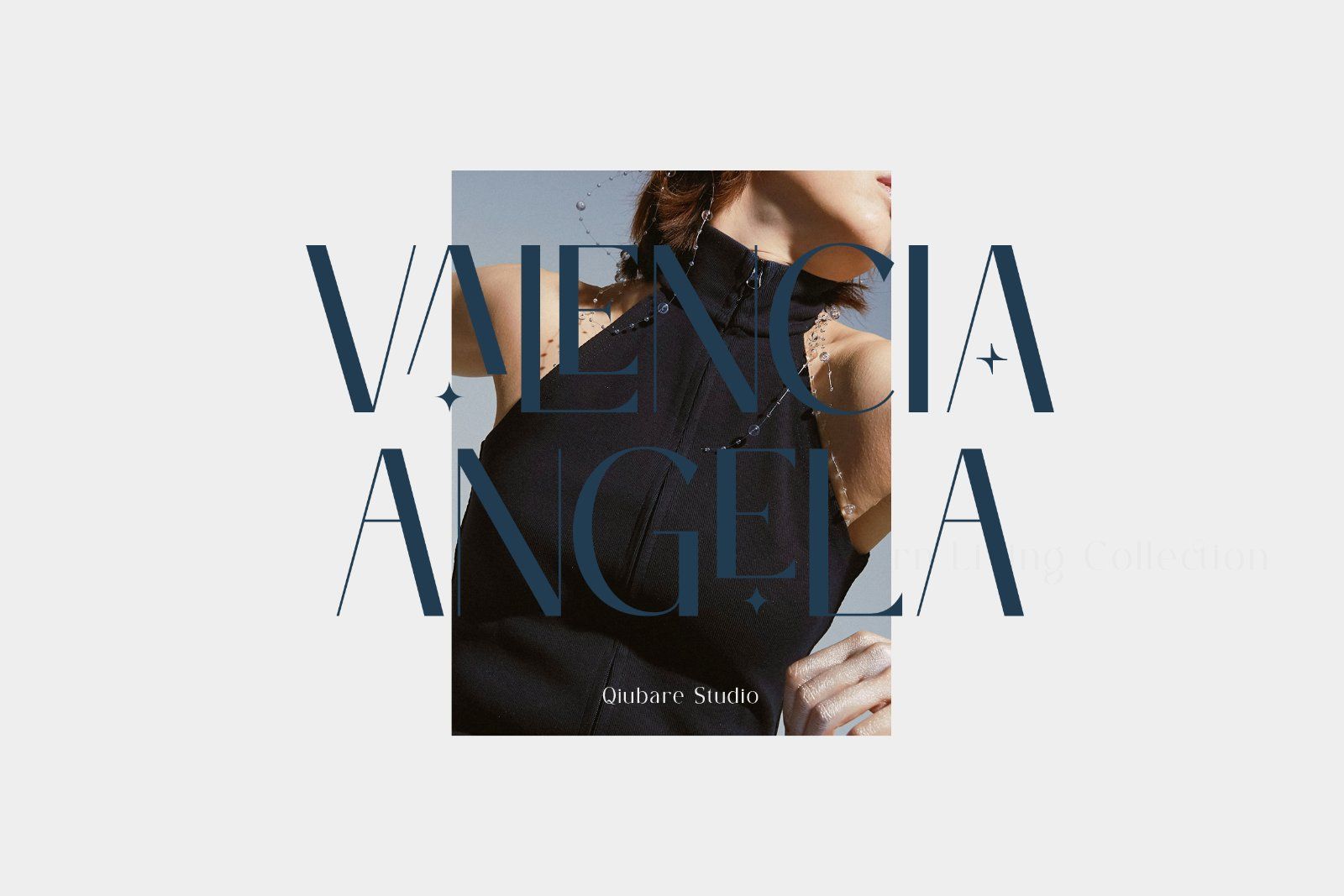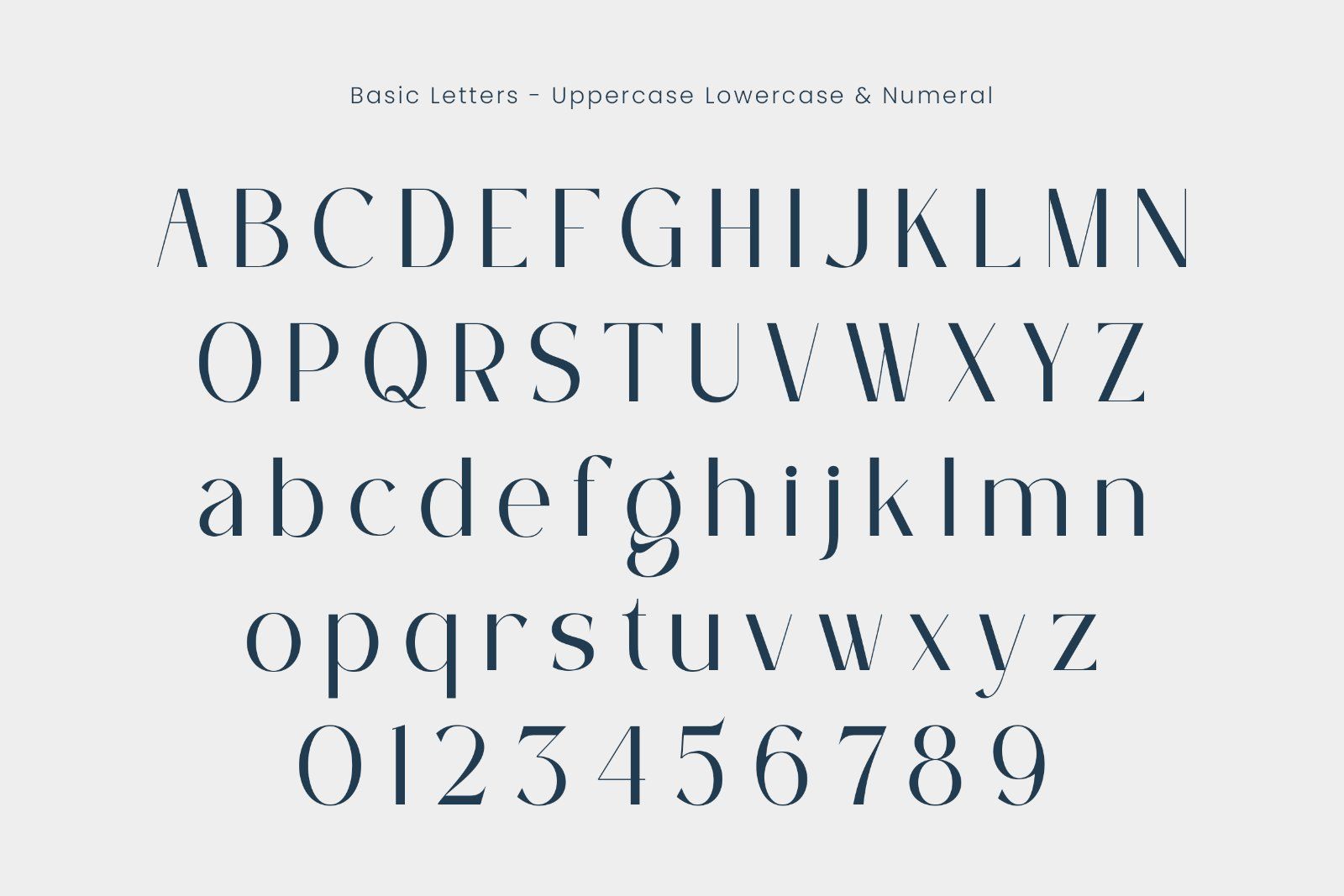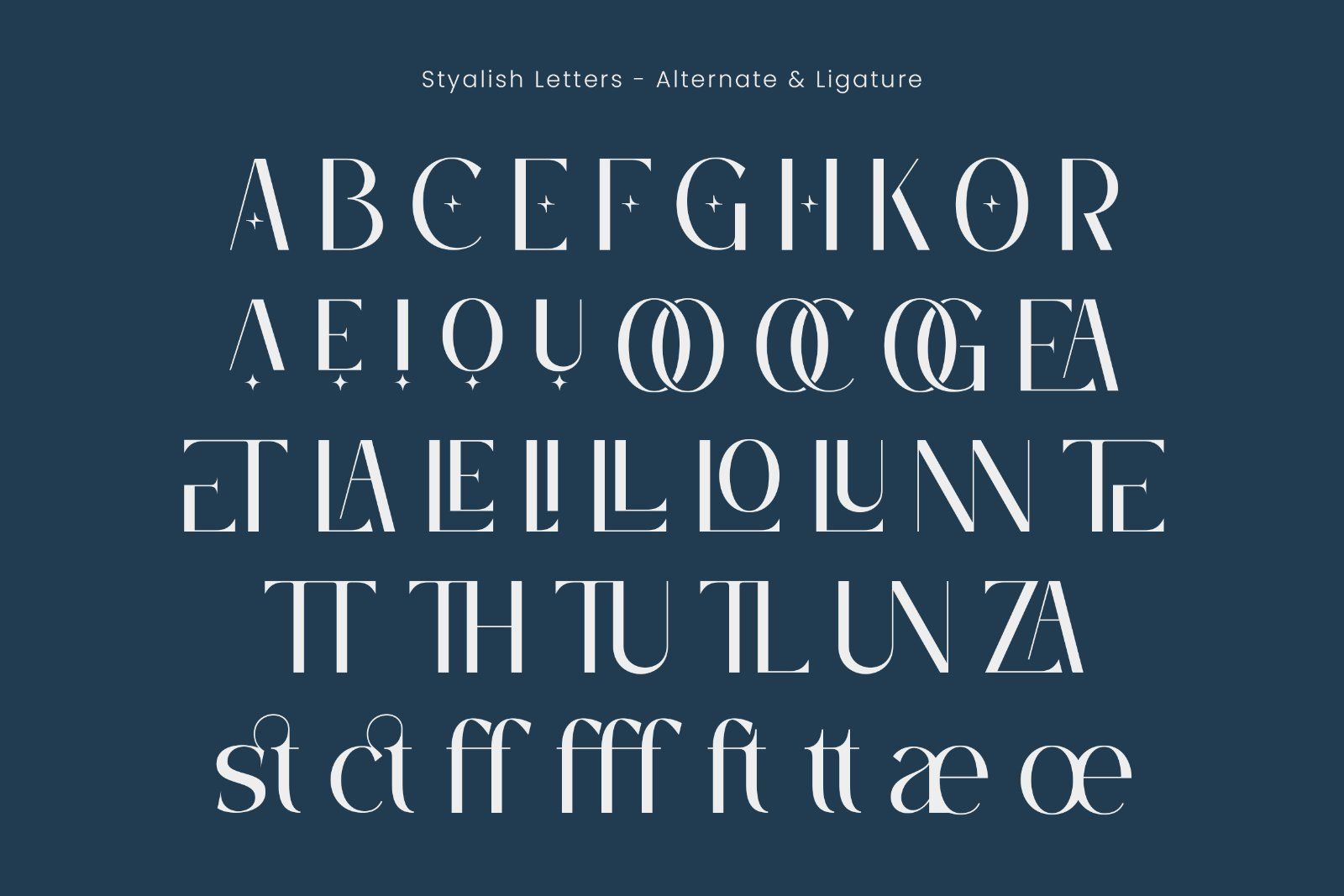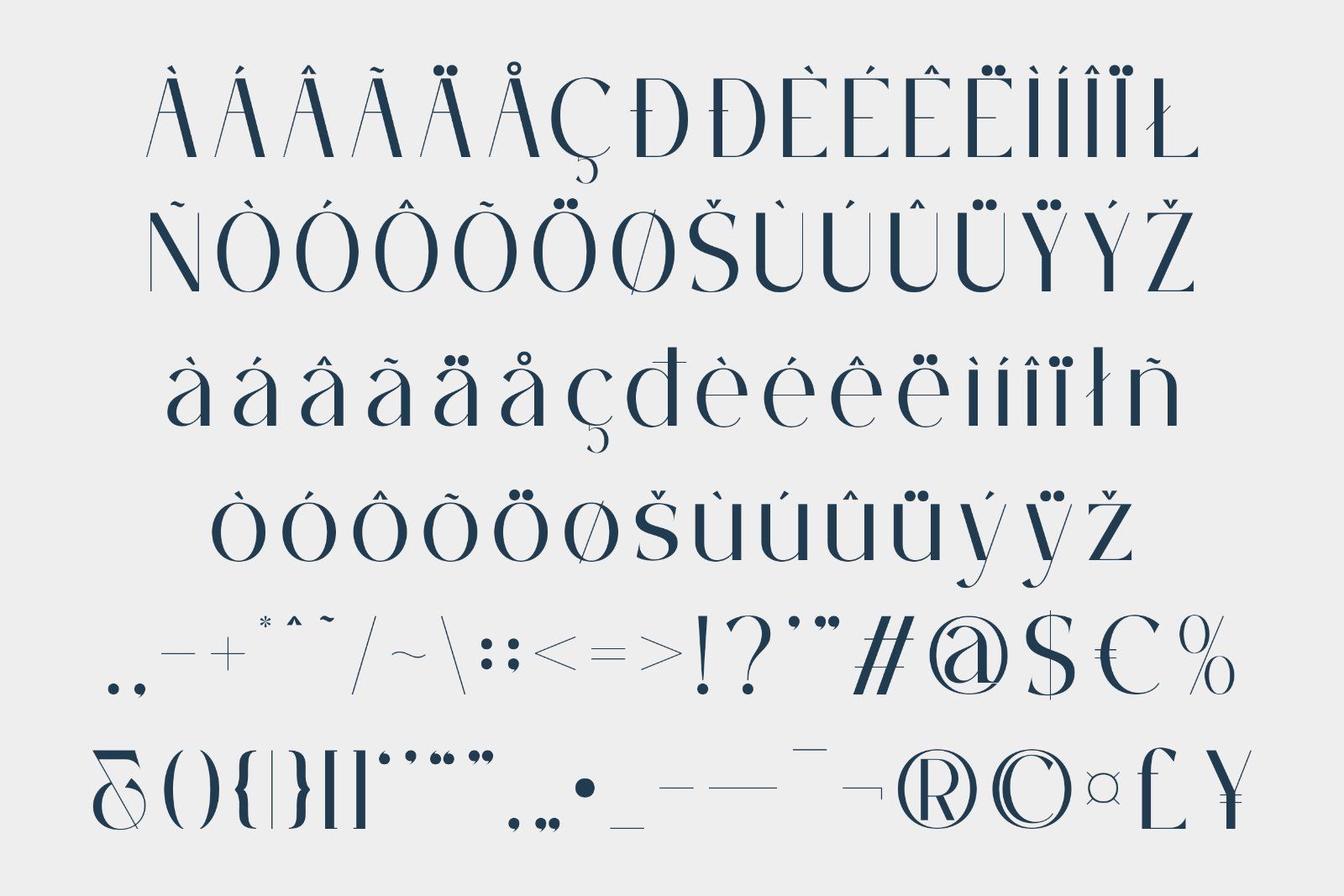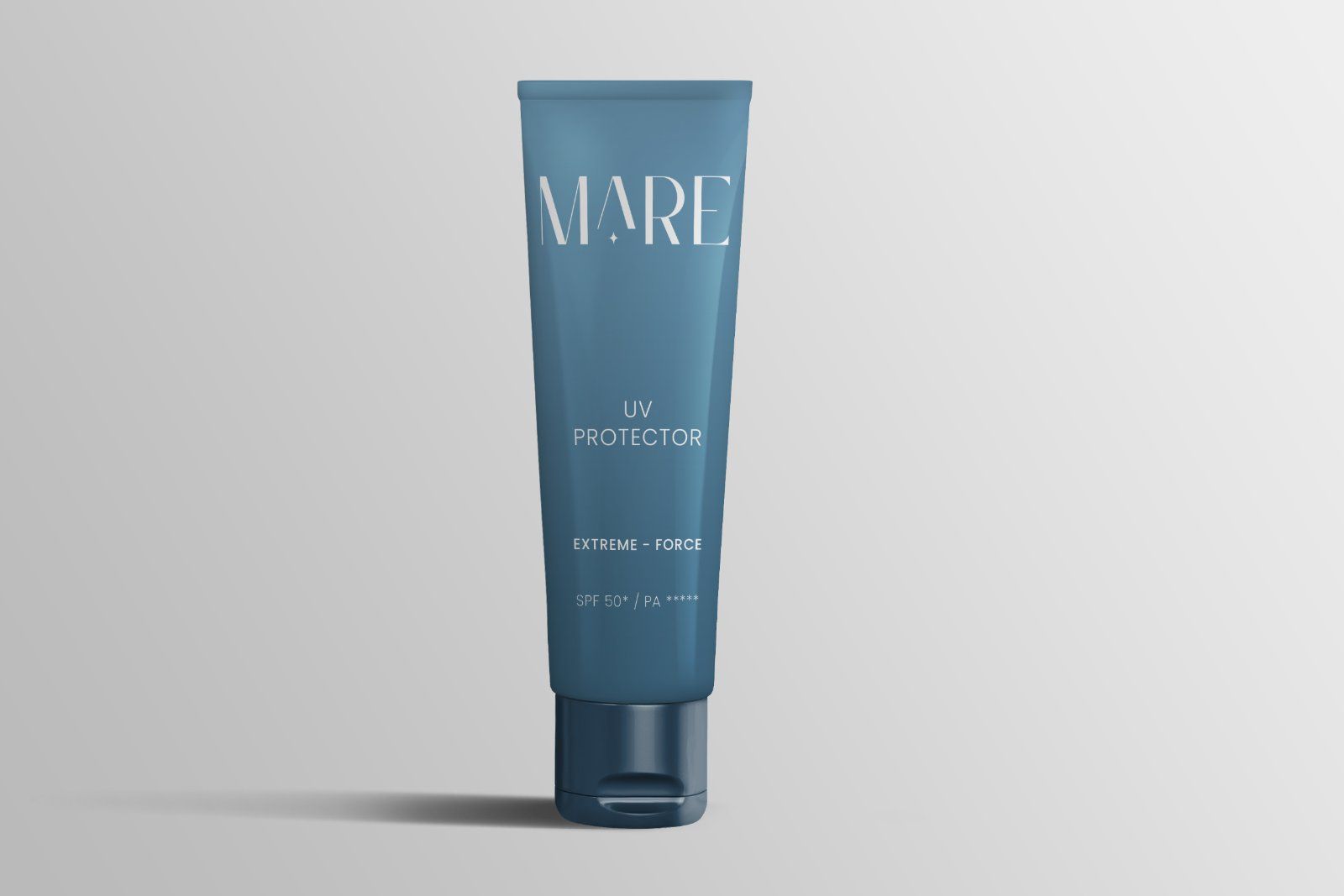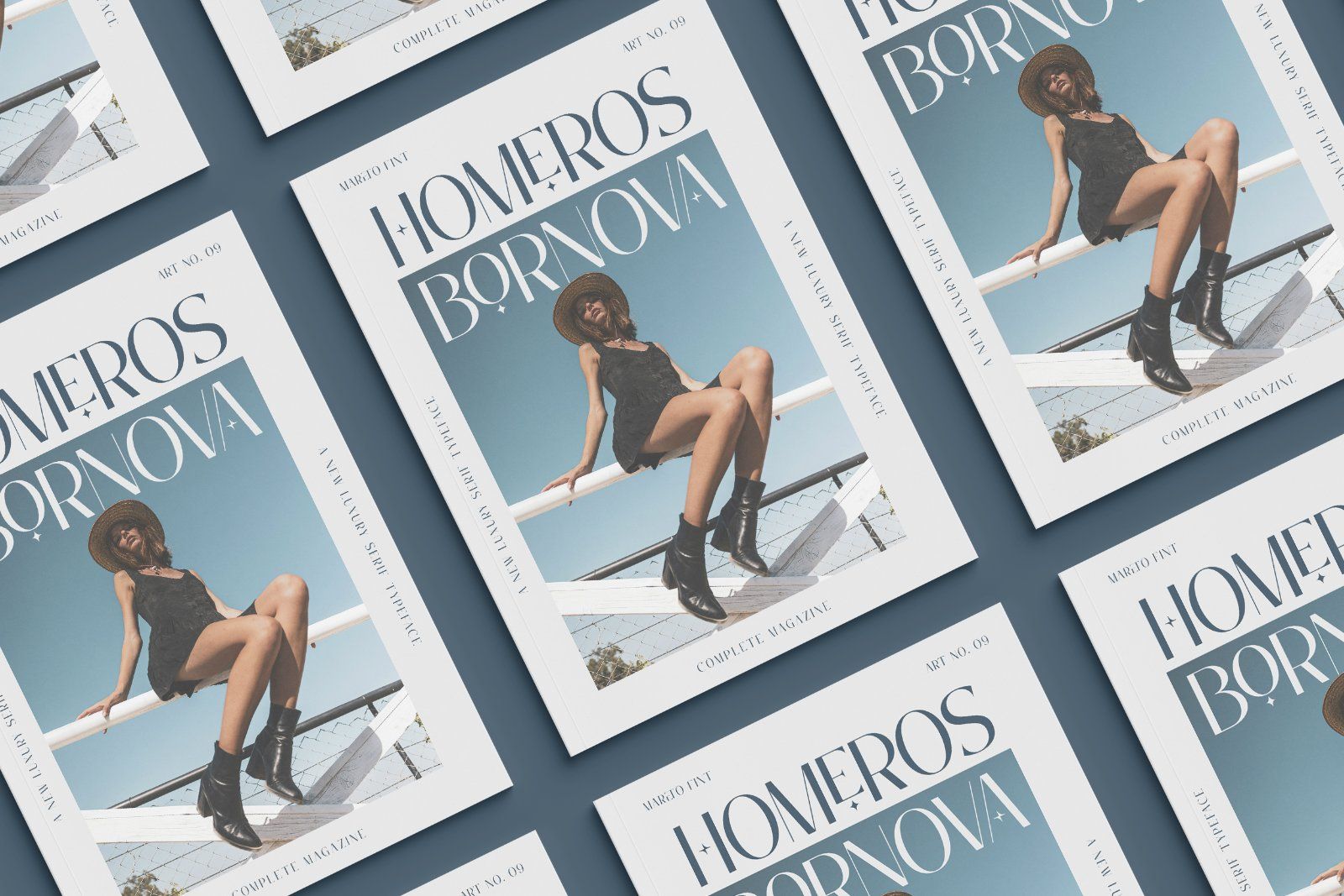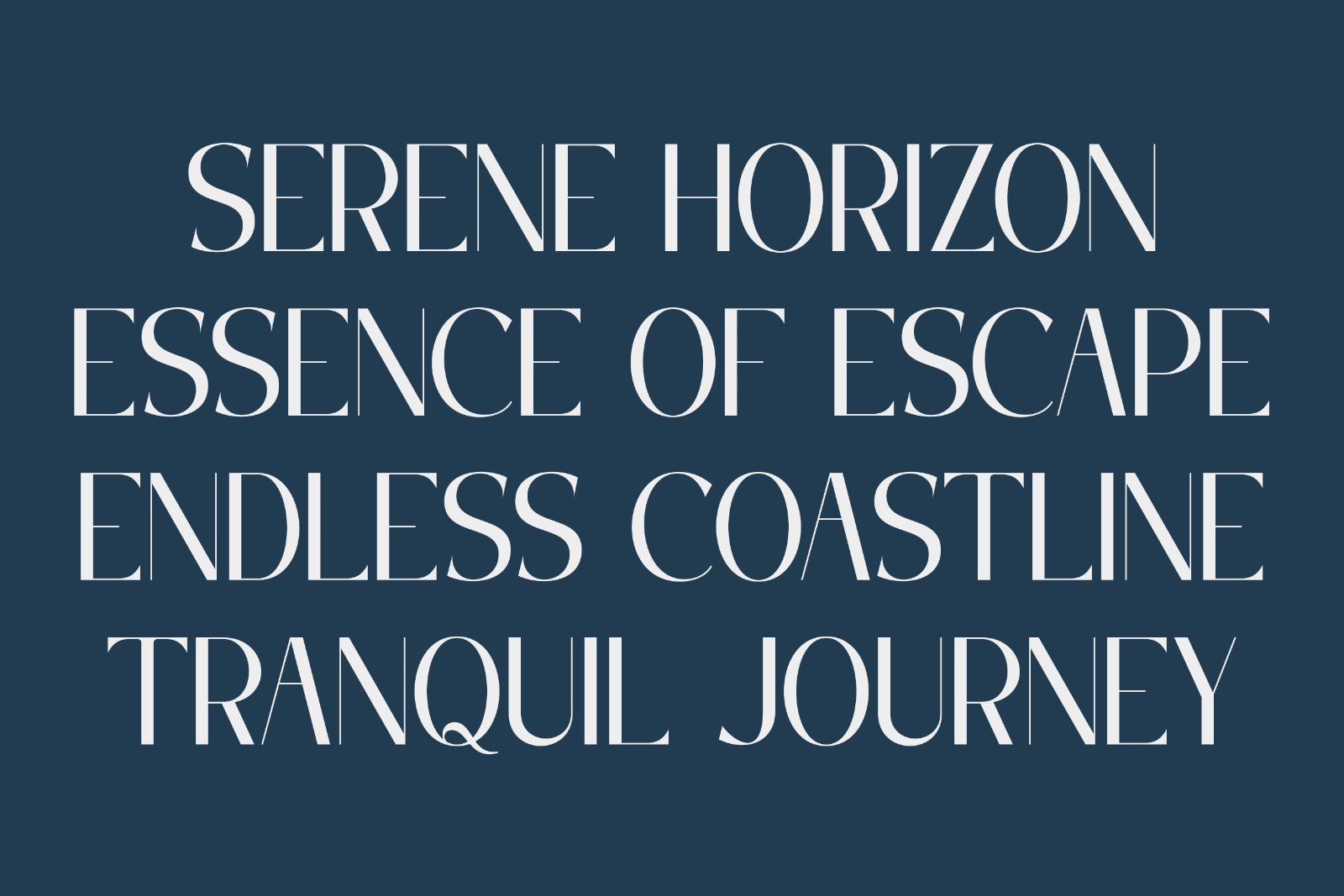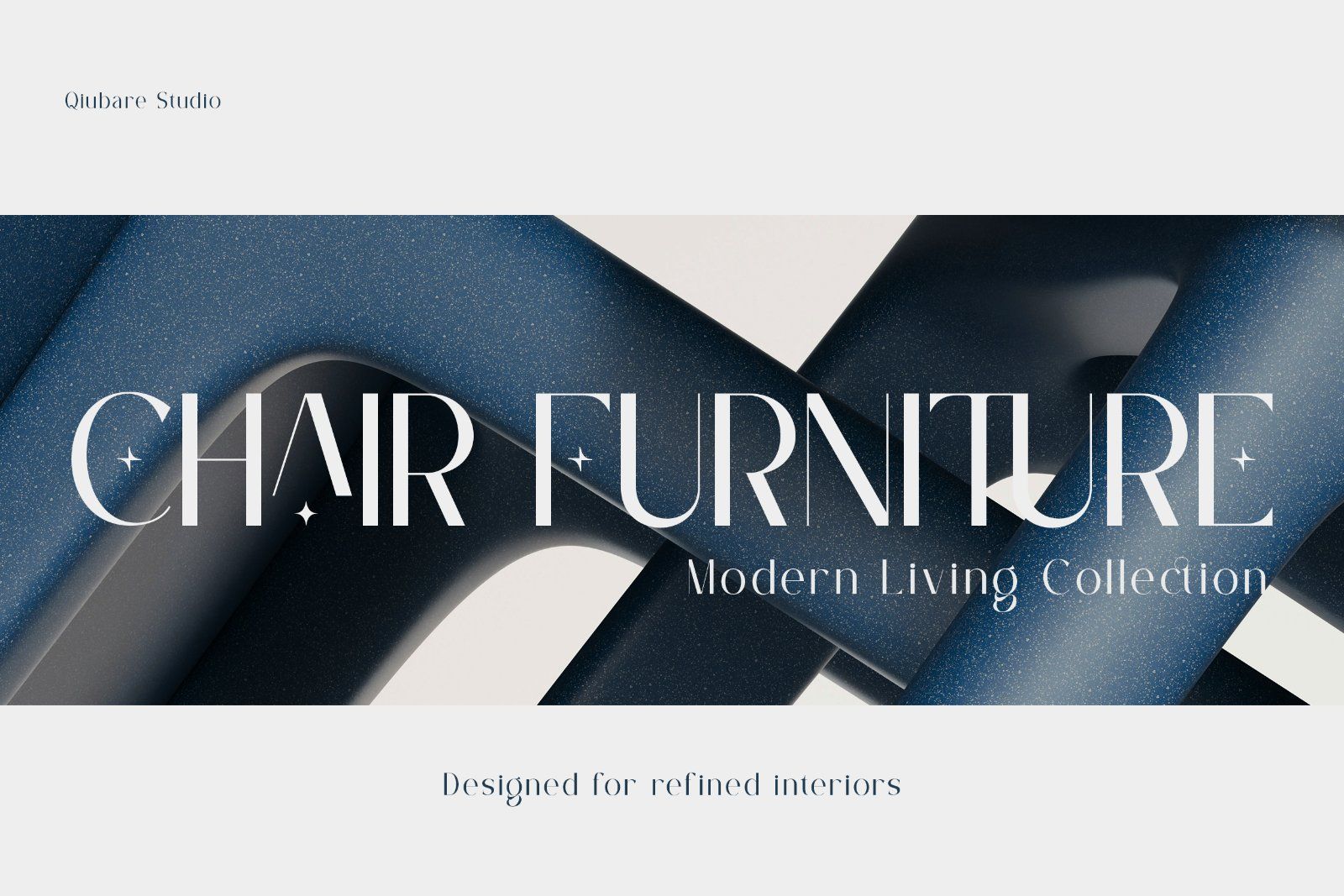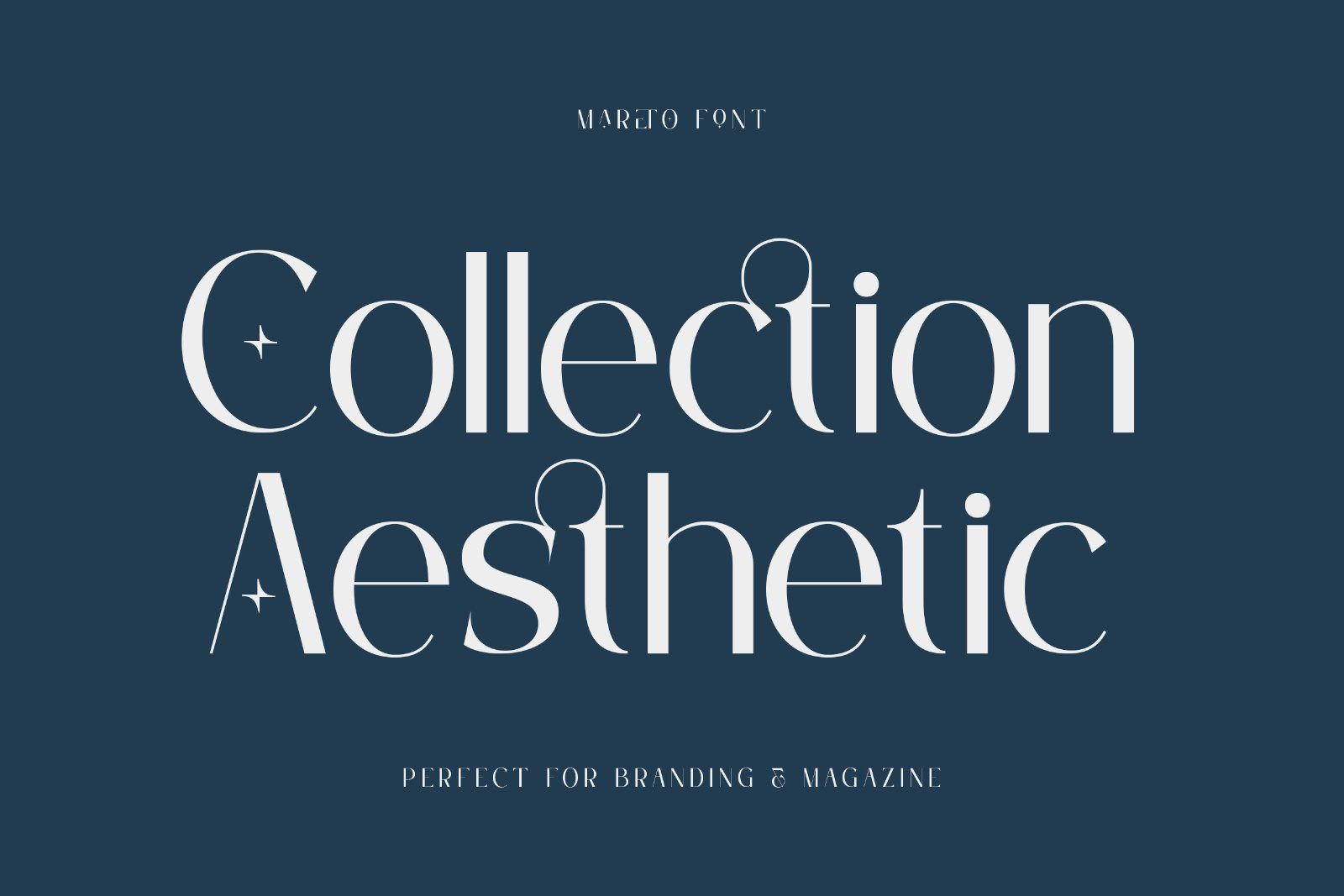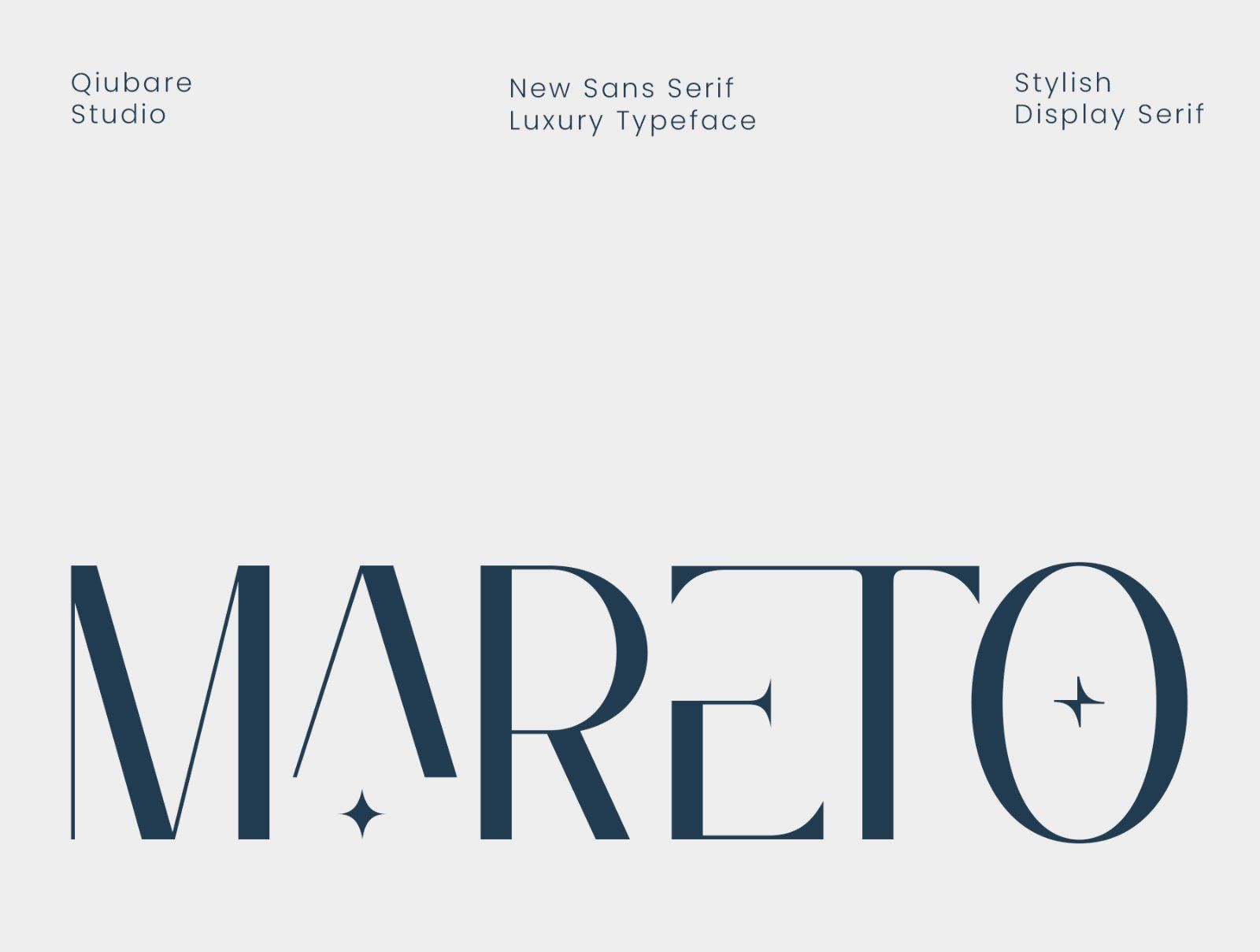
Mareto is a modern elegant sans serif font crafted with a luxurious and stylish touch. Designed for high-end branding, fashion editorials, and sophisticated visual projects, this typeface combines clean structure with unique ligatures and refined alternates.
With its distinctive character and balanced contrast, Mareto delivers a premium look that stands out effortlessly in both digital and print designs.
Perfect for: • Branding & Logo Design
• Fashion Magazine & Editorial
• Luxury Packaging
• Social Media Content
• Website Typography
• Invitations & Headlines
✨ FEATURES
• Numbers & Punctuation
• Stylish Alternates
• Ligatures
• Clean & Modern Serif Style
Mareto is not just a font — it’s a statement of elegance and modern luxury, designed to elevate your brand identity and visual storytelling.